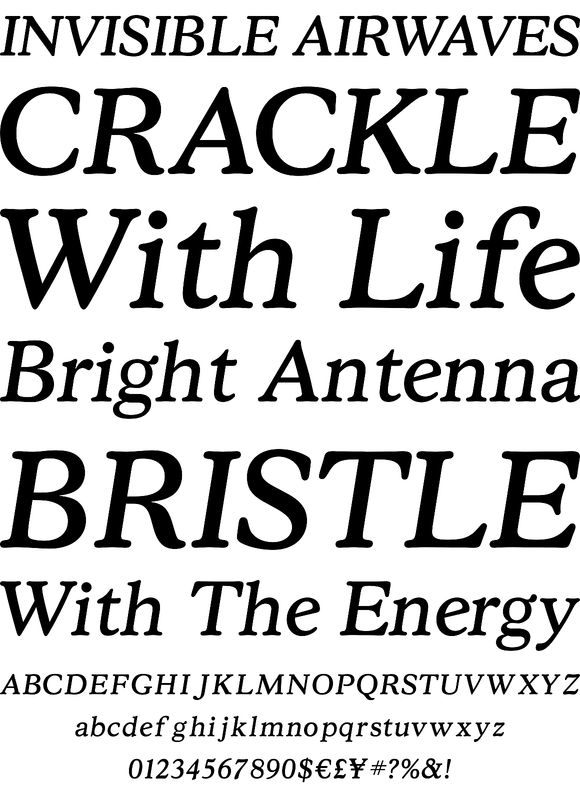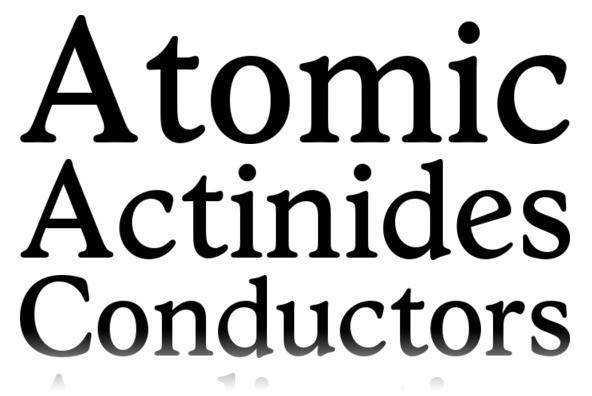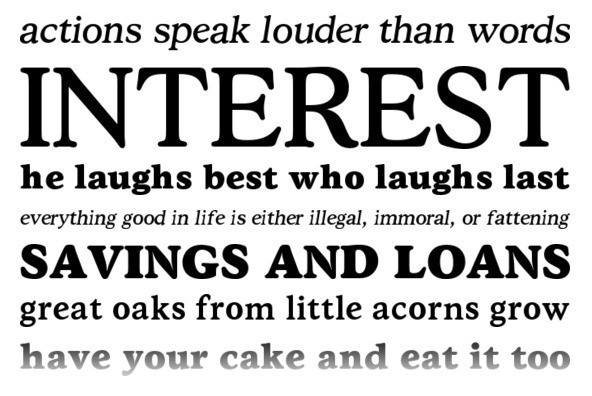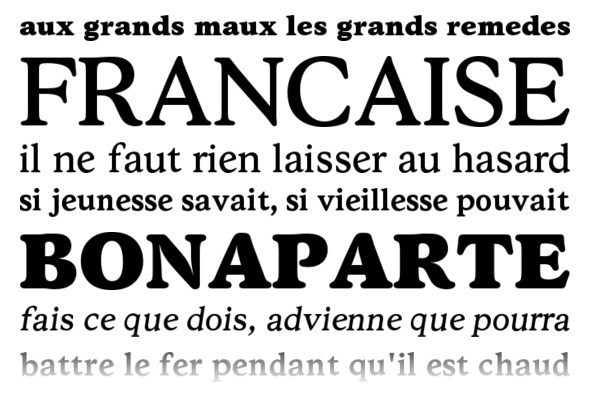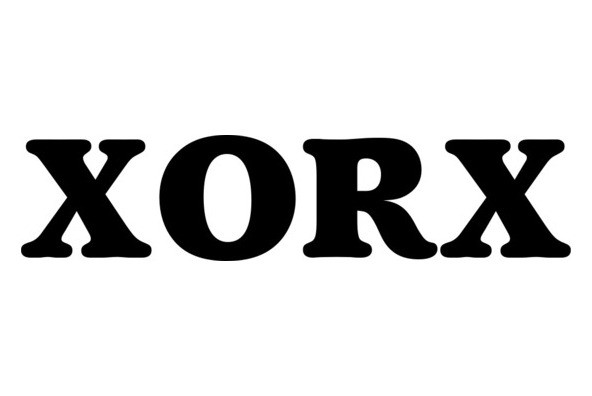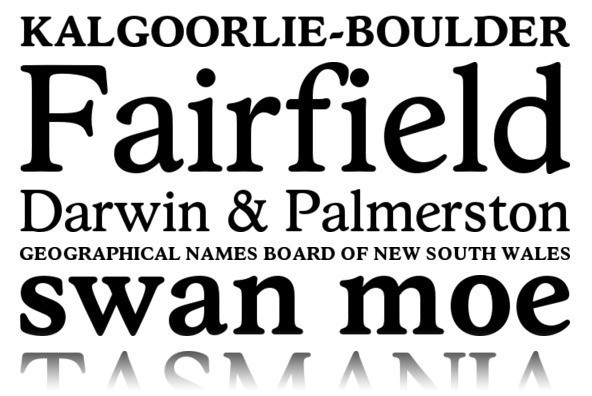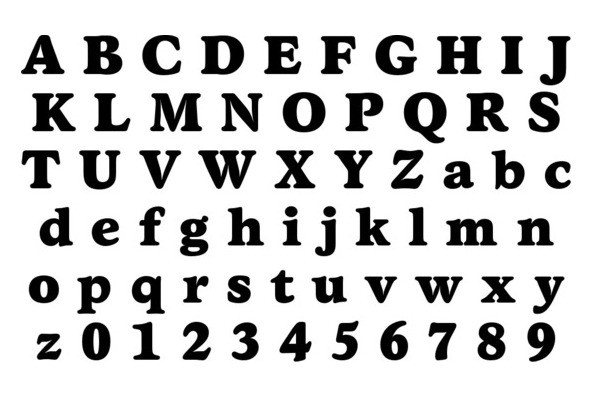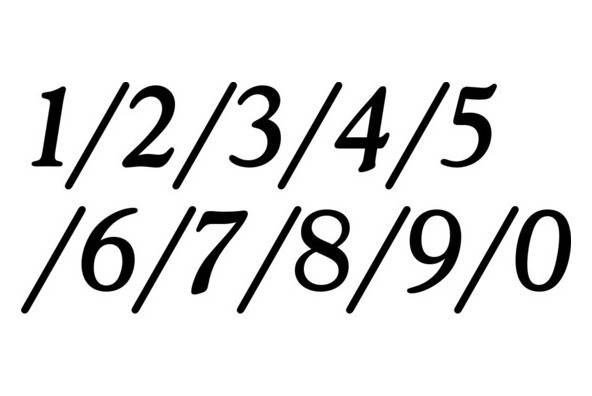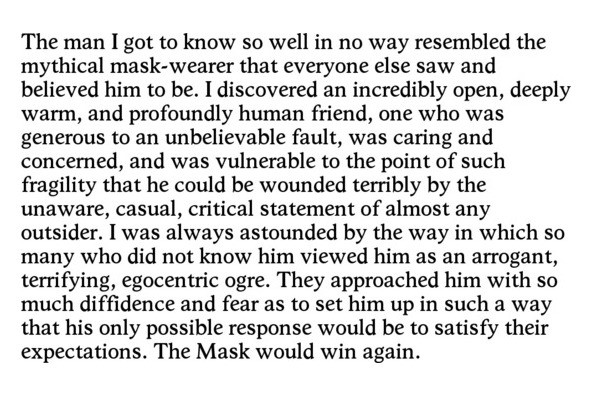
Stratford
Designed by Freda Sack in 1979, Stratford is a fine serif font release by URW. Contains language support for West, East, Turkish, Baltic, and Romanian.